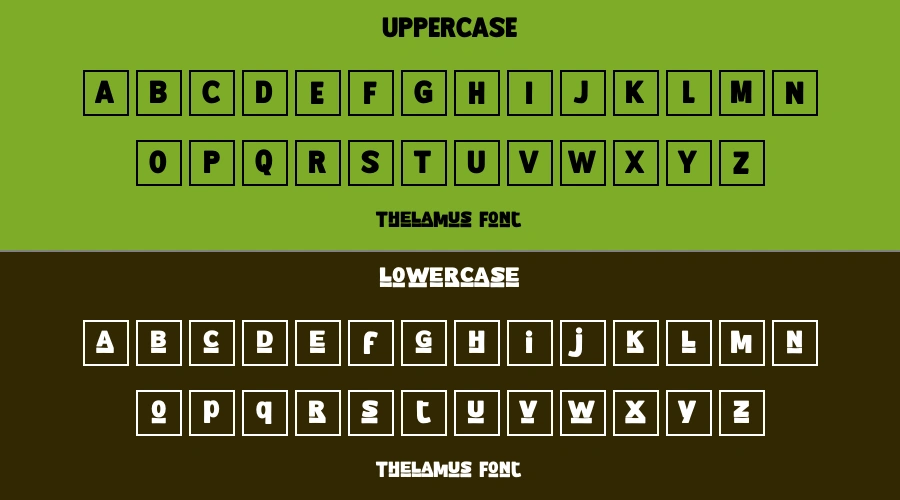
About Thelamus Font
Thelamus Font represents a sophisticated approach to type design, balancing rectangular counters with consumer engagement. Perfect for architectural plans, this font family showcases impressive craftsmanship and traditional values throughout its character set. Designers appreciate its versatility and reliability.
Designers will appreciate nuanced touches including natural flow and decorative caps, adding sophistication to any project. These features become apparent in business cards, where impact retention matters most. The careful treatment of aperture size and subtle details ensures optimal performance.